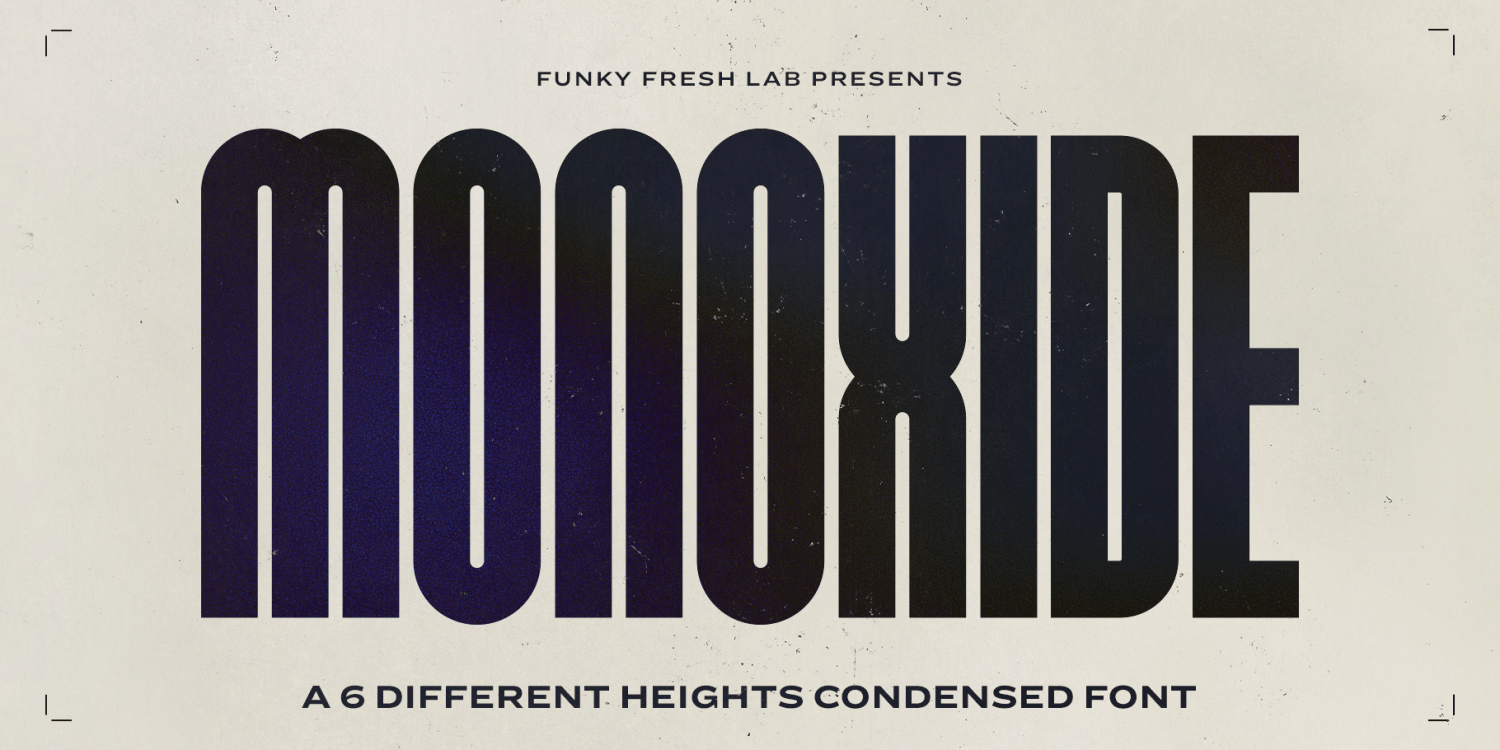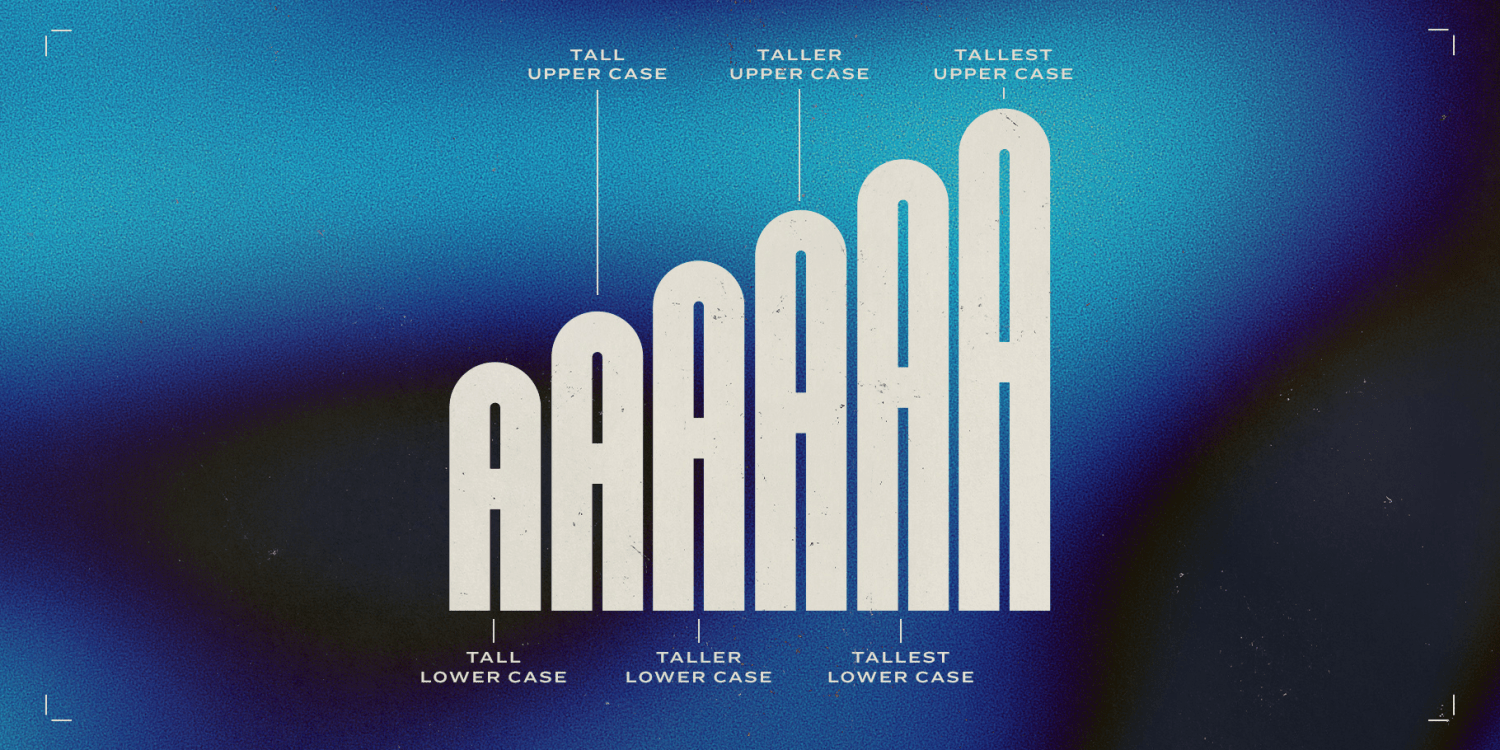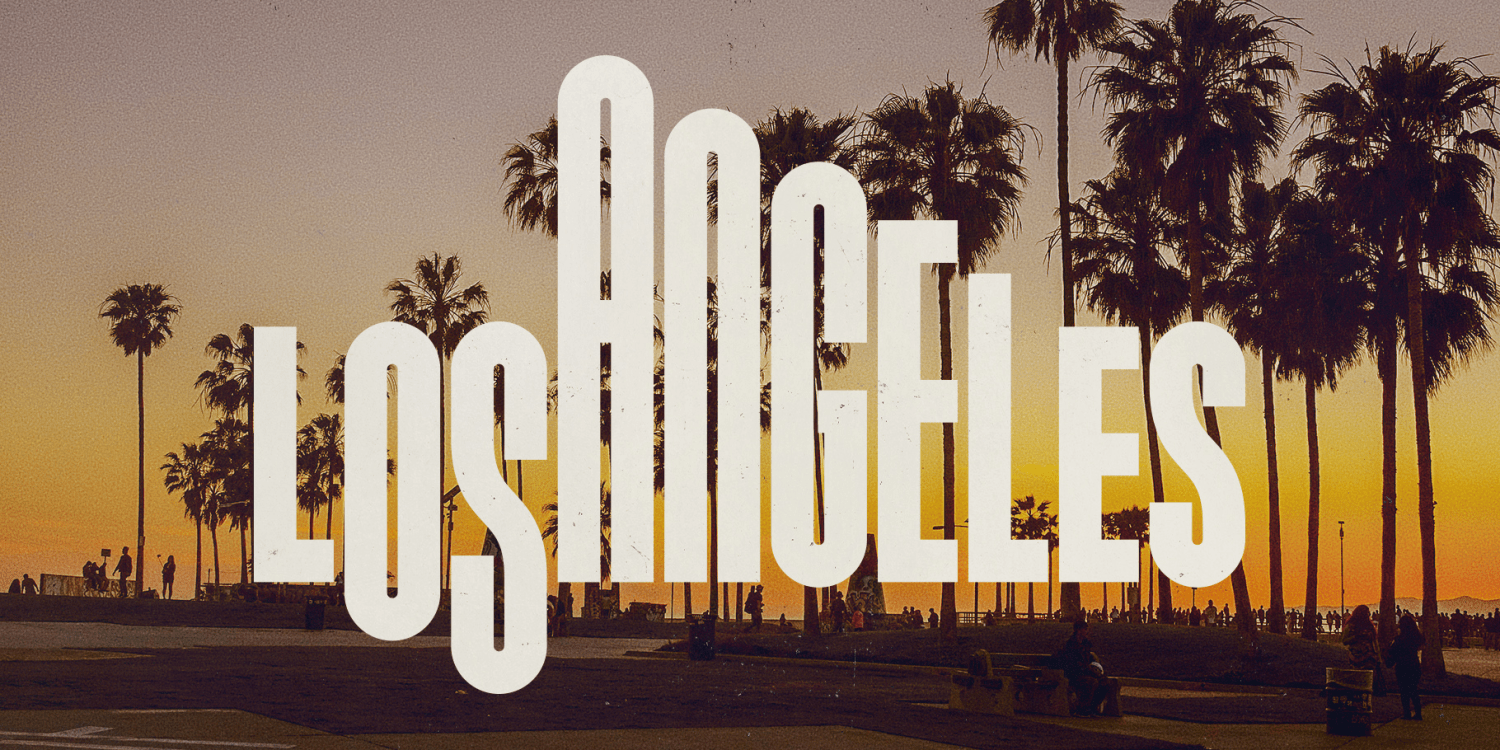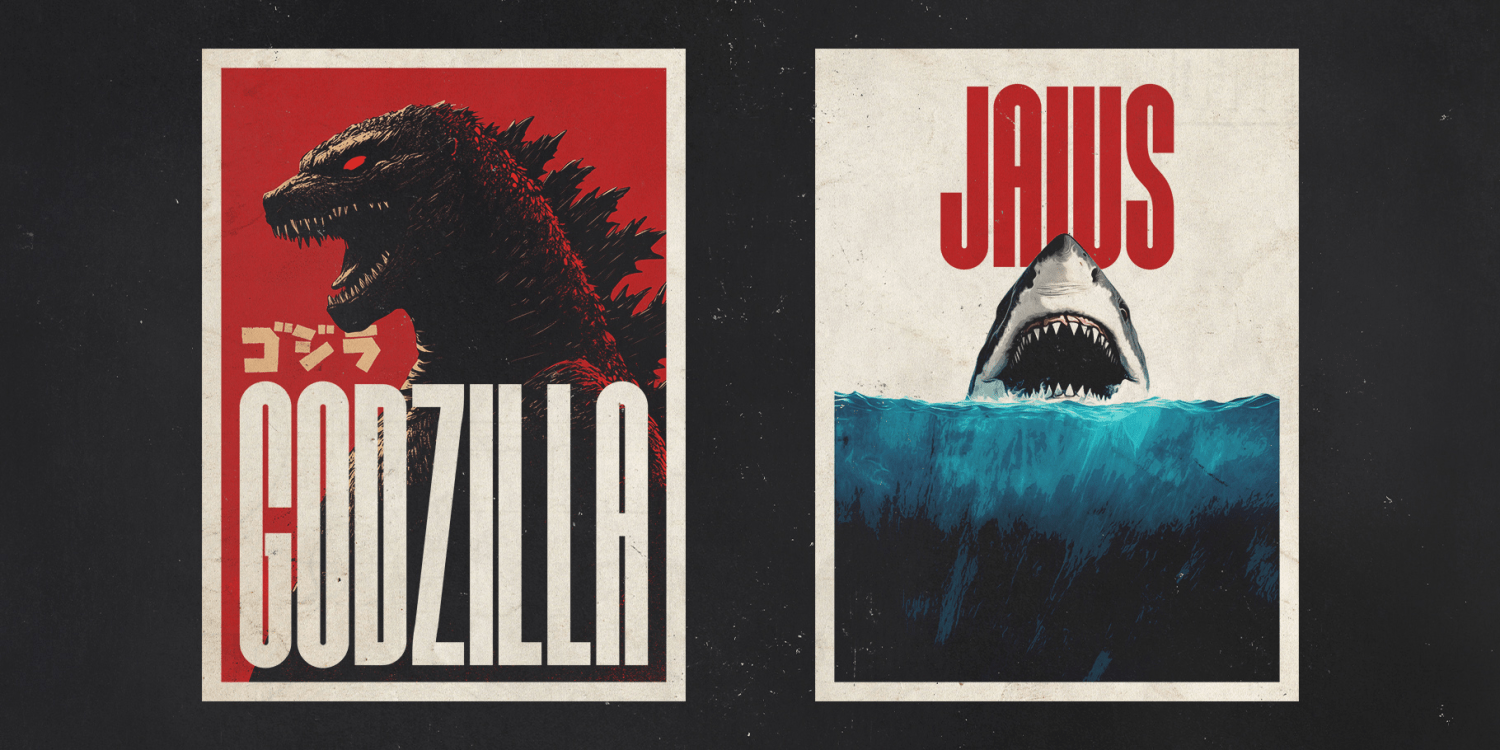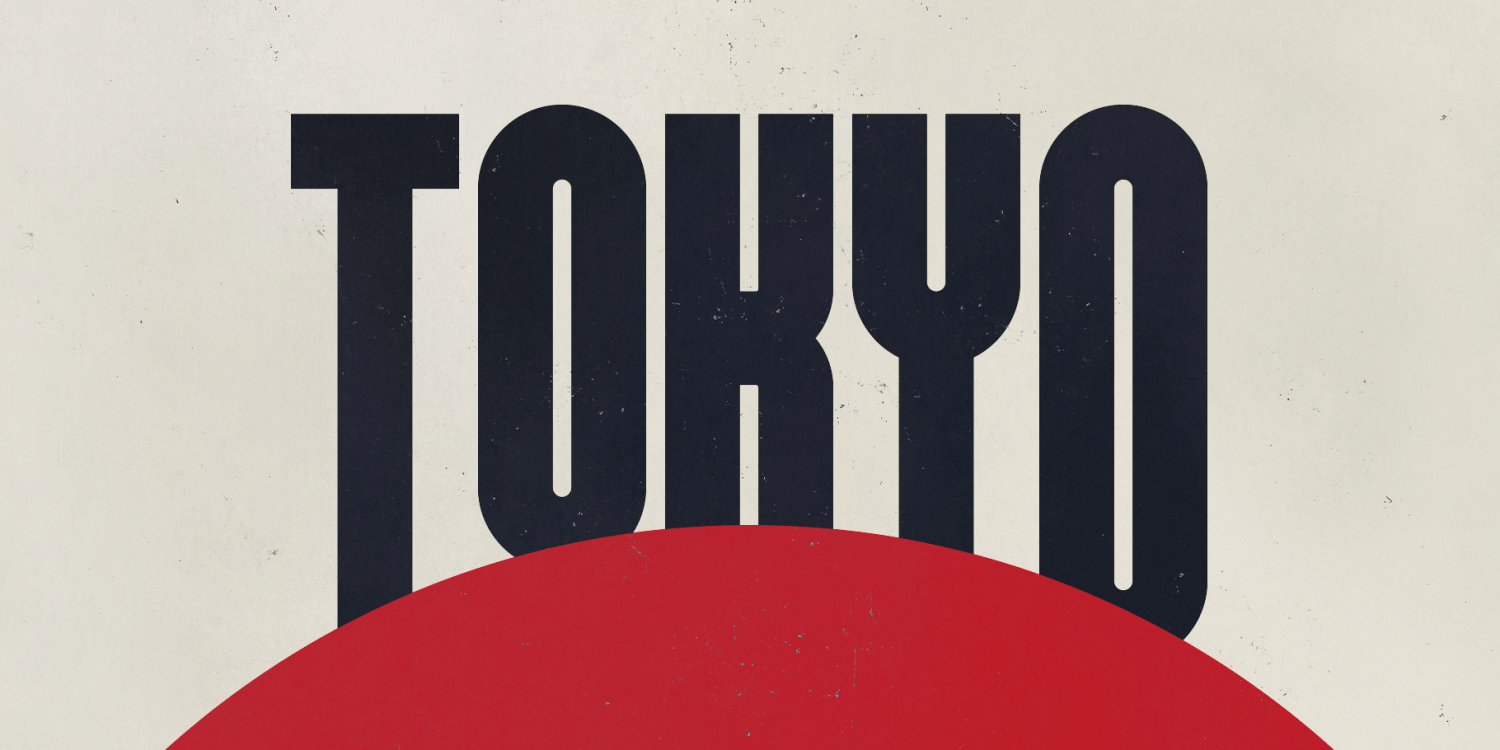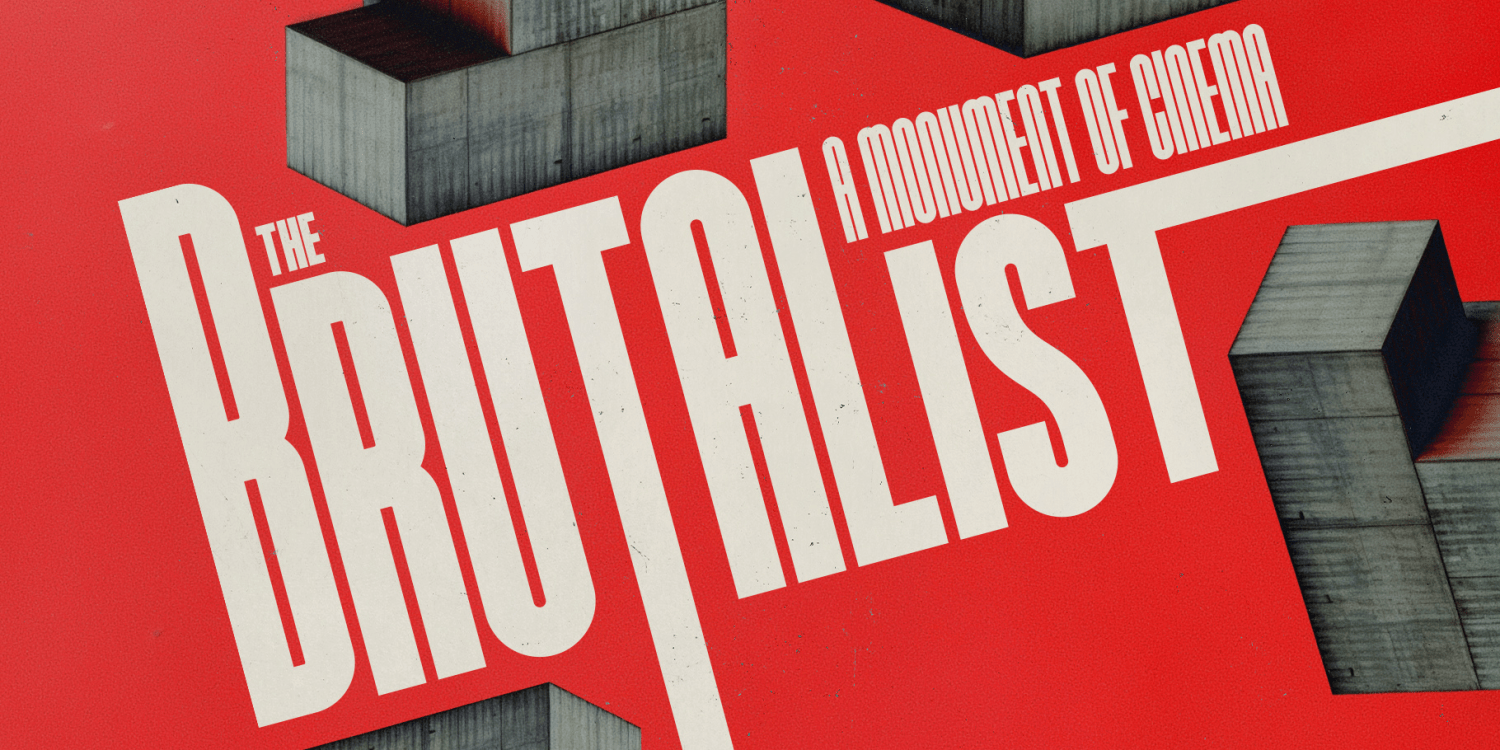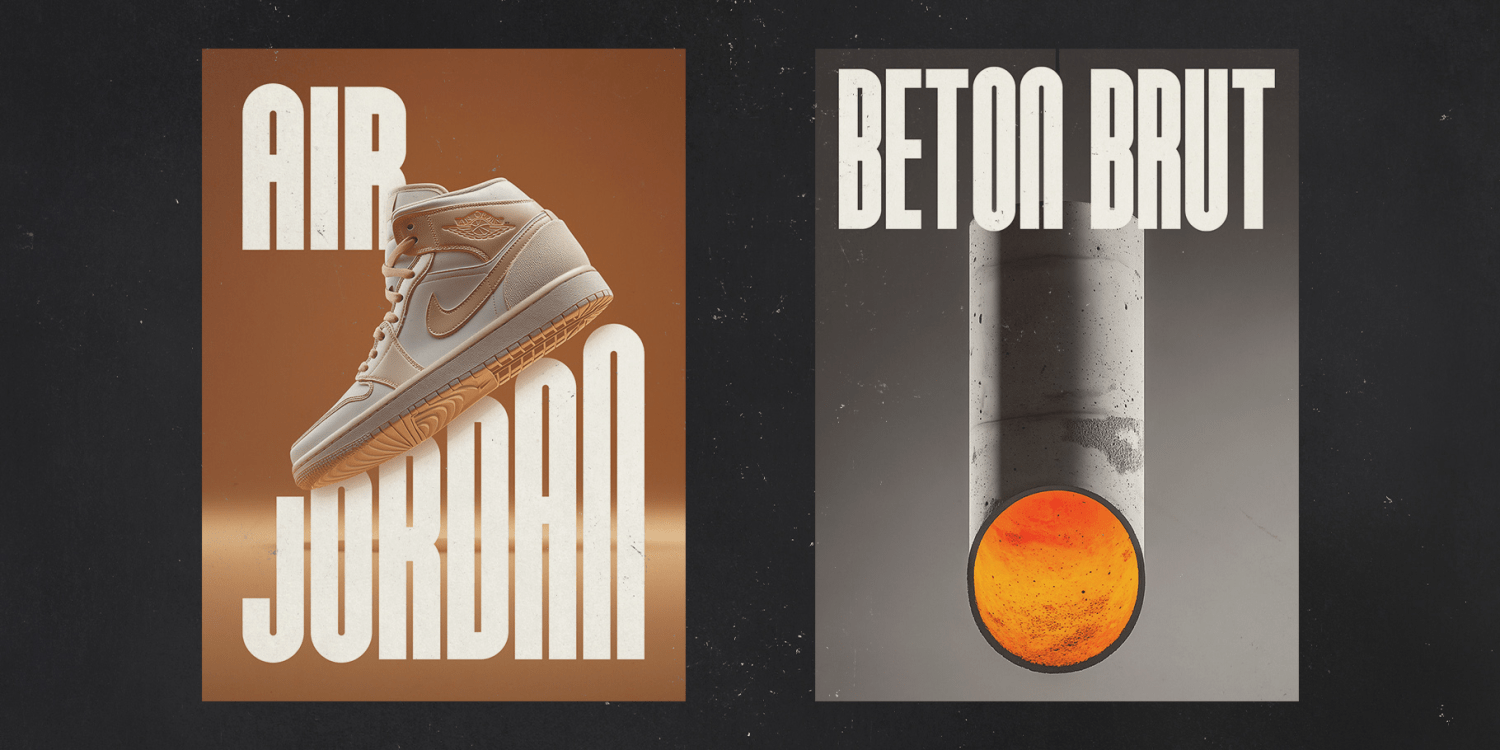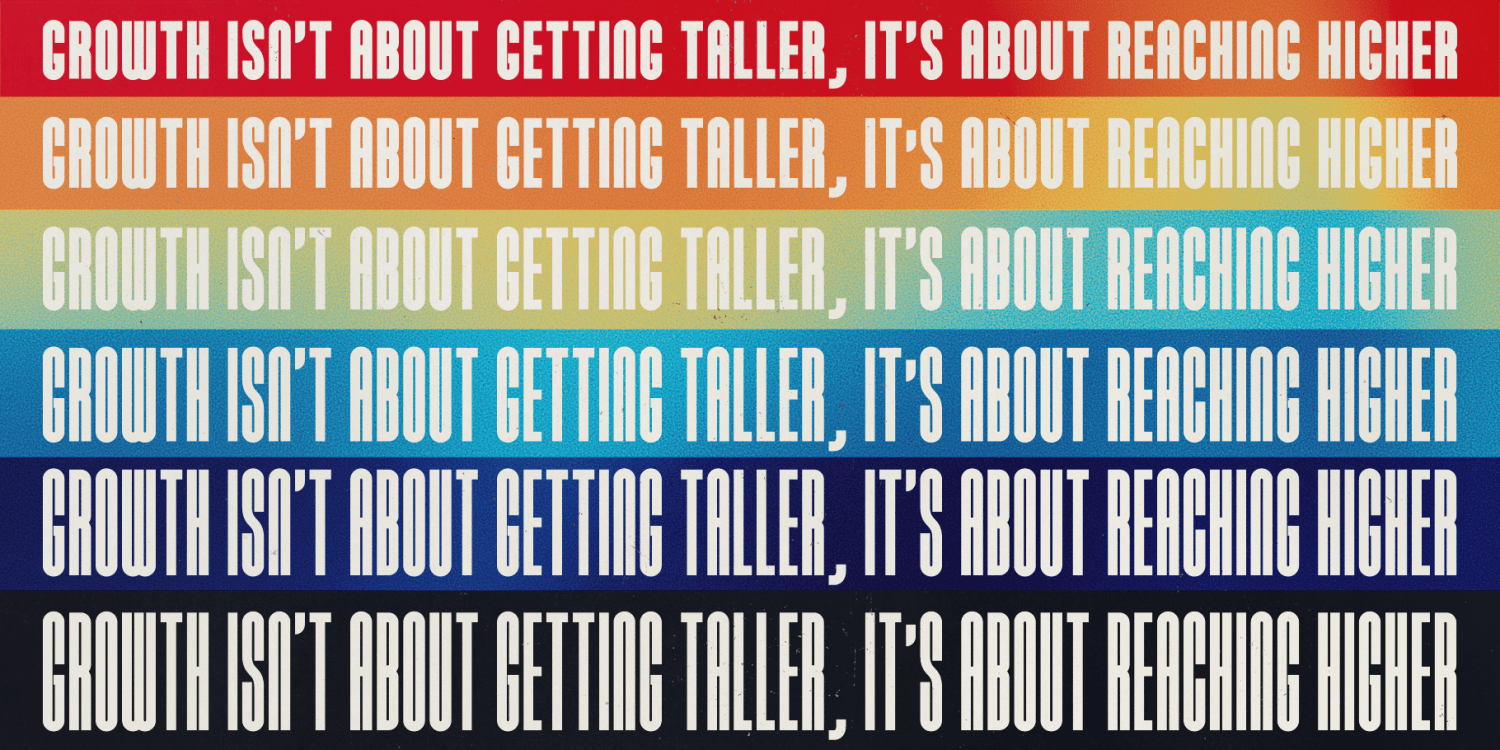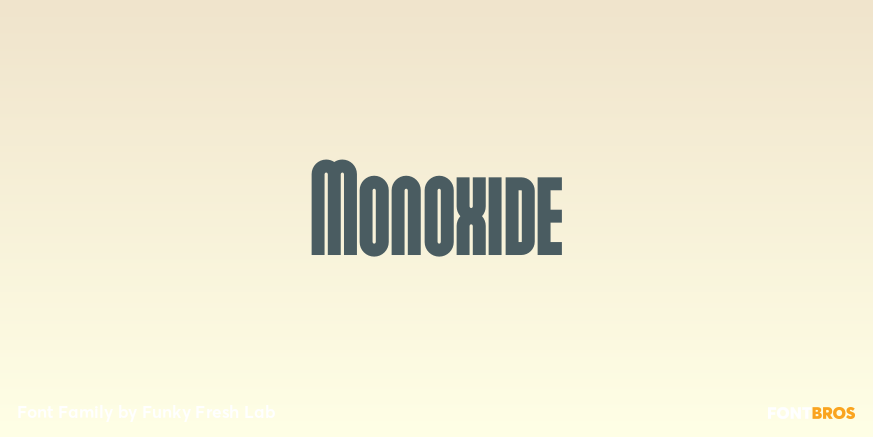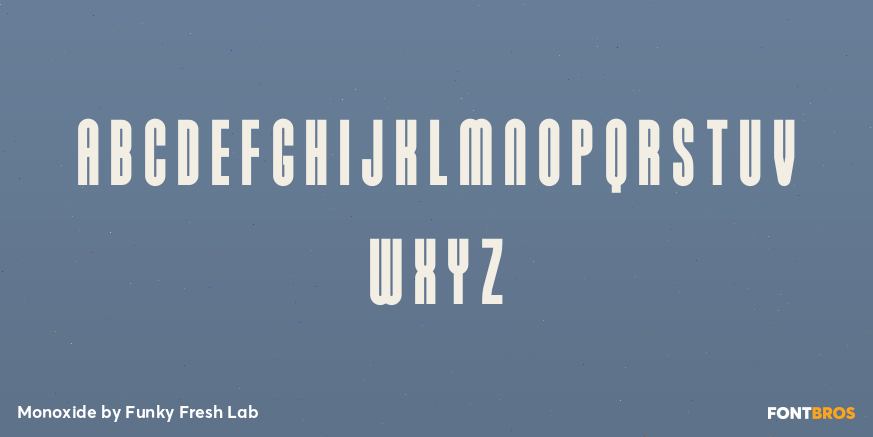
Monoxide
Font Family by Funky Fresh Lab
Introducing Monoxide, a bold, all-caps condensed font with attitude. Featuring six distinct height variations, it brings sharp personality and dynamic rhythm to headlines, posters, logos, and more. Clean, compact, and unapologetically loud.
Monoxide makes a statement.